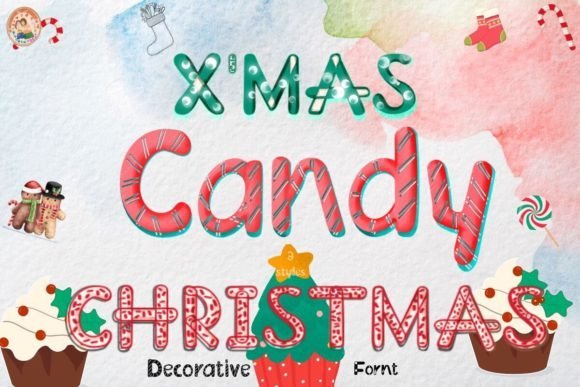
Candy Christmas Font: The Sweetest Addition to Your Holiday Designs
It’s that time of the year when creativity flows, and the air is filled with the magic of the holiday season. You’re rummaging through your design stash, searching for the perfect font to make your Christmas invitations stand out. As you scroll through your font library, your eyes land on a delightful, whimsical font that screams “Candy Christmas” – a perfect match for your festive project.
Introducing the Candy Christmas Font, a delightful decorative font available in three styles. This charming font is designed to add a touch of sweetness to your holiday creations, making them irresistible to your audience. Whether you’re designing invitations, social media posts, or greeting cards, the Candy Christmas Font is sure to elevate your designs and make them truly special.
As a designer, you know the value of a well-chosen font in making your designs pop. The Candy Christmas Font is a valuable addition to your toolkit, offering endless possibilities for creative expression during the holiday season.
Candy Christmas Font Key Features
- Unique Characteristics: The Candy Christmas Font features a playful, whimsical design with intricate details, making it perfect for festive and holiday-themed designs.
- Font Styles: The font includes 6 styles: Regular, Italic, Bold, Bold Italic, Outline, and Shadow, offering versatility for different design needs.
Candy Christmas Font Review
I recently had the chance to work with the Candy Christmas Font, and I must say it’s a fun and festive addition to any holiday design project. ✨ One of the things that works well is its whimsical feel, which is perfect for creating a playful and joyful atmosphere. The font’s rounded edges and colorful accents make it ideal for headings and titles, adding a touch of magic to any design.
Another advantage of this font is its versatility. ✨ It can be used in a variety of settings, from social media graphics to print materials, and can even be paired with other fonts to create a unique and eye-catching look. The font is also highly legible, making it easy to read even in smaller sizes.
- ⚠️ Limited character set: The font only includes uppercase and lowercase letters, as well as a few punctuation marks, which may limit its usability in certain situations.
- ⚠️ Not suitable for formal designs: Due to its playful and festive nature, the Candy Christmas Font may not be the best choice for formal or professional designs.
Overall, I think the Candy Christmas Font is a great addition to any designer’s toolkit. While it has some limitations, its unique feel and versatility make it a valuable resource for creating fun and engaging holiday designs.
For the best results, use the Candy Christmas Font in conjunction with bright, festive colors and bold graphics. Experiment with different font sizes and styles to create a unique and eye-catching design.
The Candy Christmas Font is perfect for creating festive holiday graphics, invitations, and social media posts. It’s also great for adding a touch of whimsy to your website or blog.